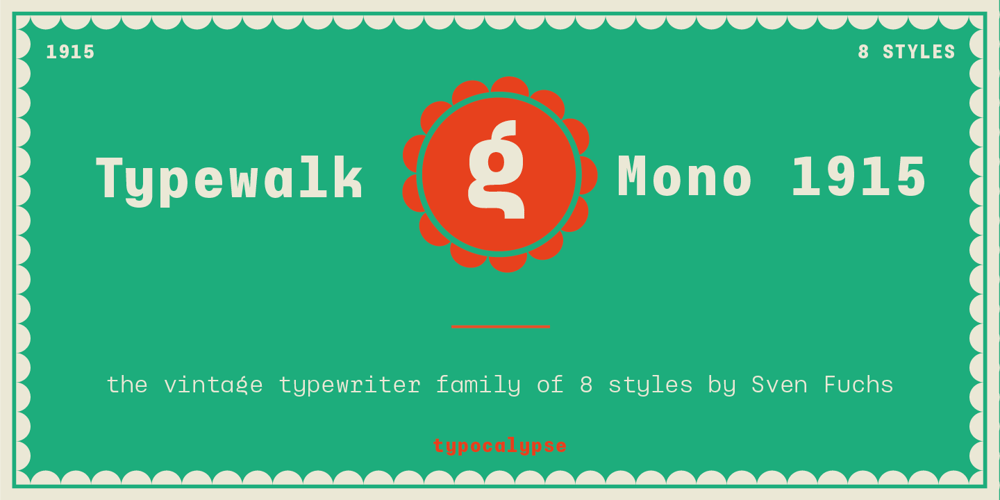
Typewalk Mono 1915 Font Family was designed by published by Typocalypse. Typewalk Mono 1915 contains 8 styles and family package options. Typewalk Mono 1915, the vintage typewriter grotesque that is branded by history. It is a tribute to the European sign painter and lettering tradition of the early 20th century. Typewalk Mono 1915 also speaks in the proto-rational and graphical language of the Werkbund Objectivity which was used around 1915. It works great for cultural, editorial and branding purposes. It is versatile in small printing sizes and works great on the web. Speaking with its unique voice. Typewalk Mono 1915 is the debut release by Sven Fuchs and was designed between 2012 and 2016. It has 8 distinctive weights from thin to bold.